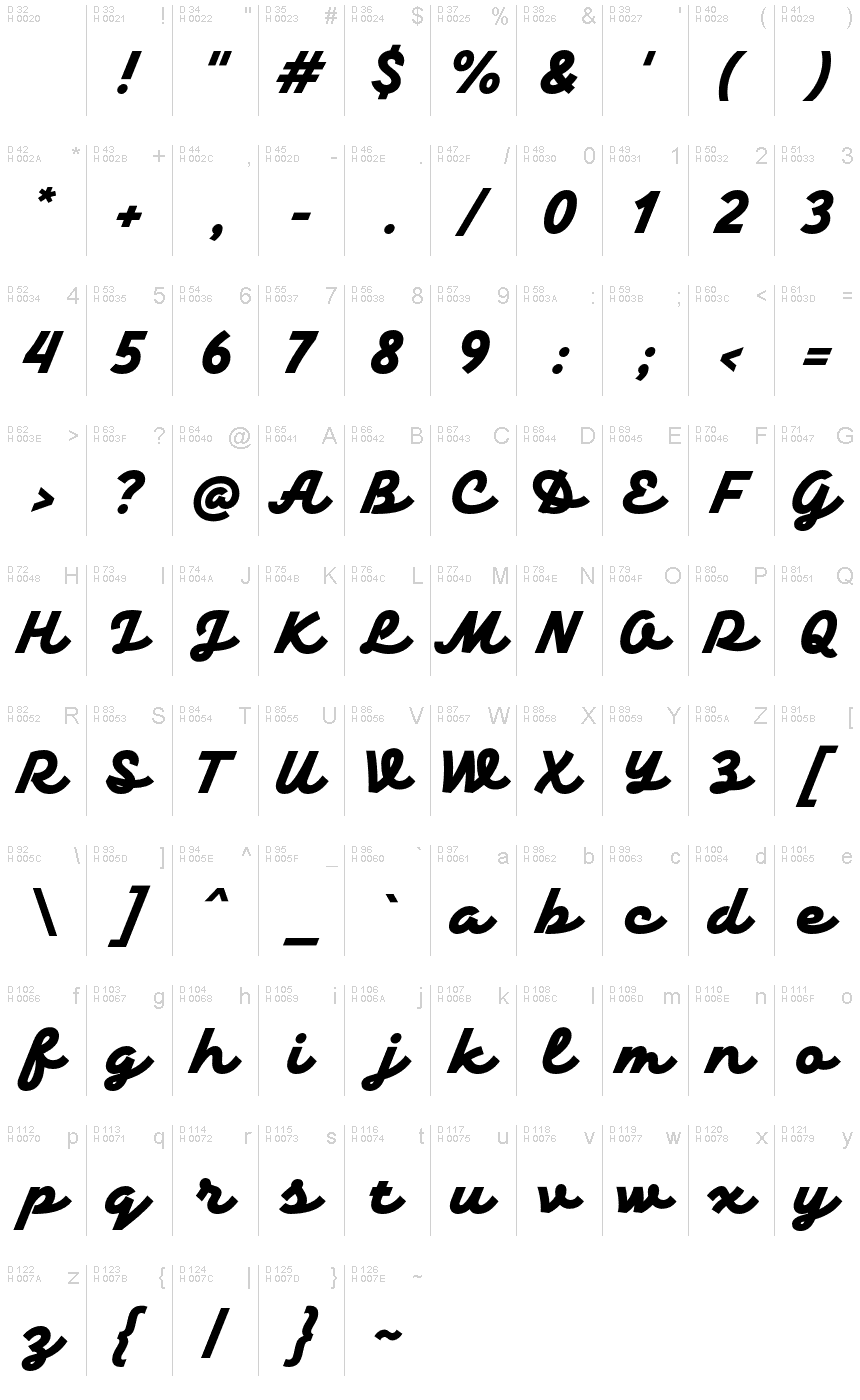
TT Backwards Script Trl Black
TT Backwards Script Black is the perfect handwritten font for any project that demands a bold and daring aesthetic. With its unique style and bold weight, this typeface adds a touch of edginess to any design. Whether you're creating a logo for a rock band or designing an album cover, this font will make your work stand out from the crowd. Its retro feel makes it ideal for vintage-inspired projects such as posters and invitations. Impress your audience with TT Backwards Script Black's signature look - it's sure to leave a lasting impression!